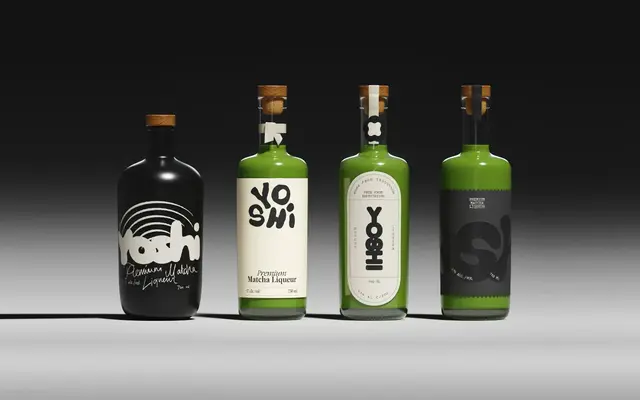
PP Nikkei
Pangram Foundry · Caio Kondo, Francesca Bolognini, Mat Desjardins · 2024
A multi-system display family by Inari Type and Pangram, built as a typographic tribute to Japanese immigration to America.
PP Nikkei is a sprawling display system by Caio Kondo, Francesca Bolognini and Mat Desjardins, structured as five interlinked subfamilies plus a Crests glyph set. The complete collection spans 72 styles with italics, variable cuts and a dedicated set of Japanese family crests. Pangram positions it as a tribute to Nikkei communities, drawing on hand-lettered ship signage, immigrant newspapers and family crests for the design references.
Pangram tags it Geometric, Grotesk, Italics, Sans Serif, Text, Variable. Built as five interlinked typographic systems: Upright, Italic, Journal, Maru, Pacific, Line, with a Crests glyph set. Marketed as a tribute to Japanese immigration to America.